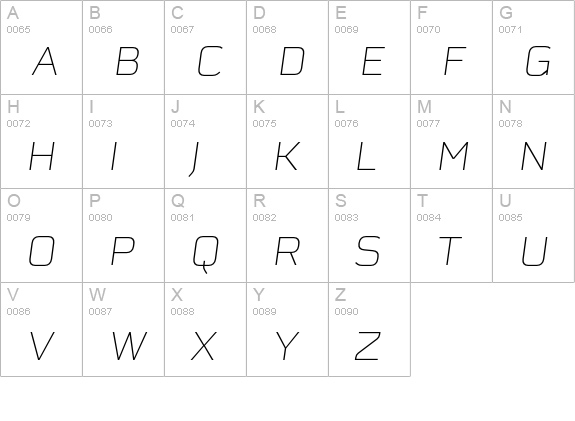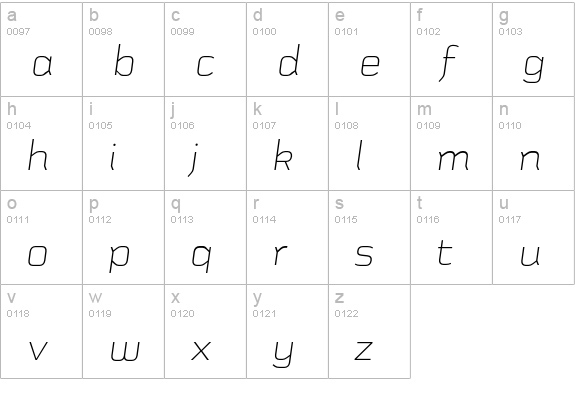
Schwager Sans Thin Italic Font Details
Schwager Sans Thin Italic is a delicate, low-contrast, italic variant in the Schwager typeface family \xE2\x80\x94 well suited to fashion editorial, minimal branding, and high-contrast display.
Schwager Sans Thin Italic font embodies elegance and sophistication with its delicate letterforms and slanted design. This slender yet stylish typeface exudes a sense of modernity and grace, making it perfect for adding a touch of refinement to any design project. The italicized version of Schwager Sans Thin offers a subtle twist on the traditional sans-serif style, adding a dynamic and contemporary flair to your text. What's even better is that Schwager Sans Thin Italic font is available for free download at FontsMarket.com. Now you can effortlessly elevate your designs with this stunning typeface without any cost. Whether you're working on branding materials, editorial layouts, or digital graphics, Schwager Sans Thin Italic font is sure to make a statement with its sleek and sophisticated appearance. Download it today and unlock a world of design possibilities at your fingertips.